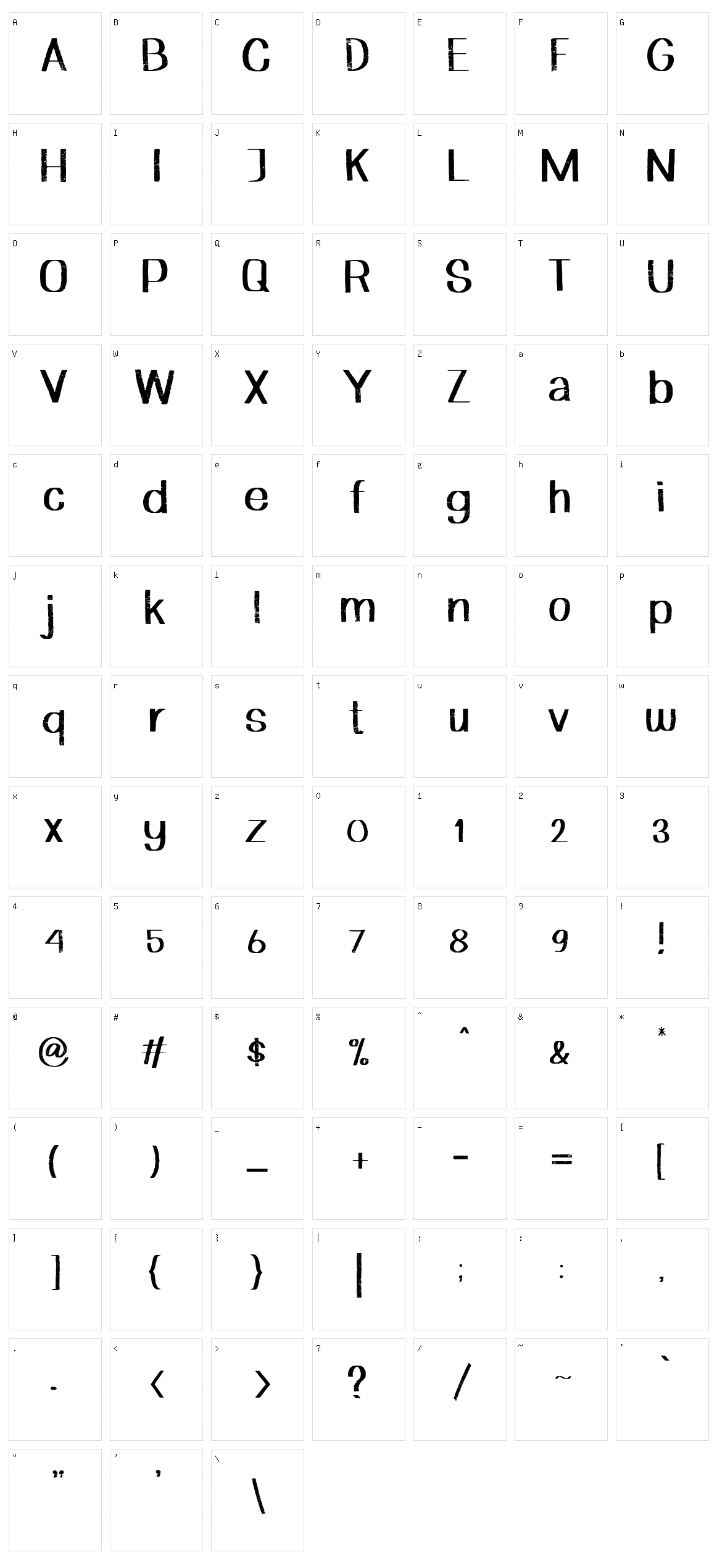
The free font Elvian is carefully designed by Scratch Design, showcasing a thoughtful balance of creativity and usability and falls under the Eroded font style. When you download the ZIP file, it contains only 159.78 KB of font files, making it lightweight and quick to download. Please review the license details below to understand permitted usage and distribution rights. If license information is not available, we recommend using this font for personal projects only or contacting the author directly for commercial usage permissions.